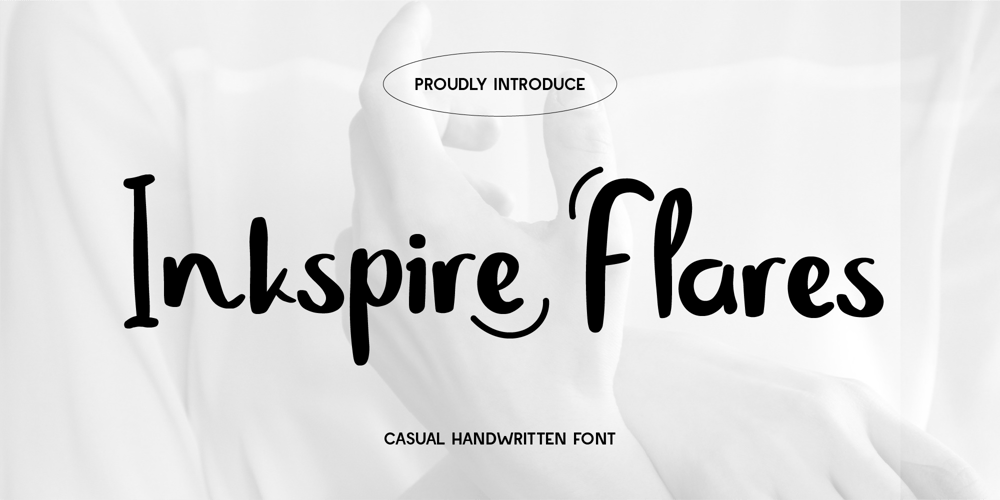
Inkspire Flares
Inkspire Flares font
Inkspire Flares Font Family was designed by Gilang Mei Nugraha, Frederik Aristaputra and published by Creatifont Studio. Inkspire Flares contains 1 styles and family package options. Inkspire Flares – a handwritten font that combines elegance, modernity, and effortless charm. Its smooth curves and rounded edges bring a soft, approachable feel, while subtle flares add expressive sophistication. Perfect for branding, social media, and creative projects, Inkspire Flares flows seamlessly, adding personality and beauty to any design. Discover where elegance meets inspiration with Inkspire Flares.A SUMMARY OF WHAT’S INCLUDED: Standard Character A-Z, a-z, 0-9, Punctuation & symbols Regular Style Include Alternates and Ligatures Multilingual Support Works on PC & Mac Simple installation Accessible in Adobe Creative Suite (Ai, Ps, Id, etc.) even work on Microsoft Word. PUA Encoded Characters – Fully accessible without additional design software. 🌟If you come across any issues or notice anything we might have overlooked while using this product, please feel free to reach out to us. We greatly value your feedback as it helps us enhance and refine our products. Thank you!